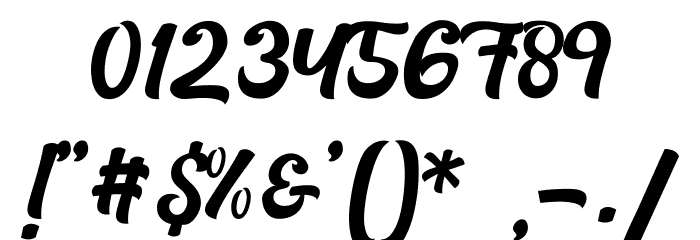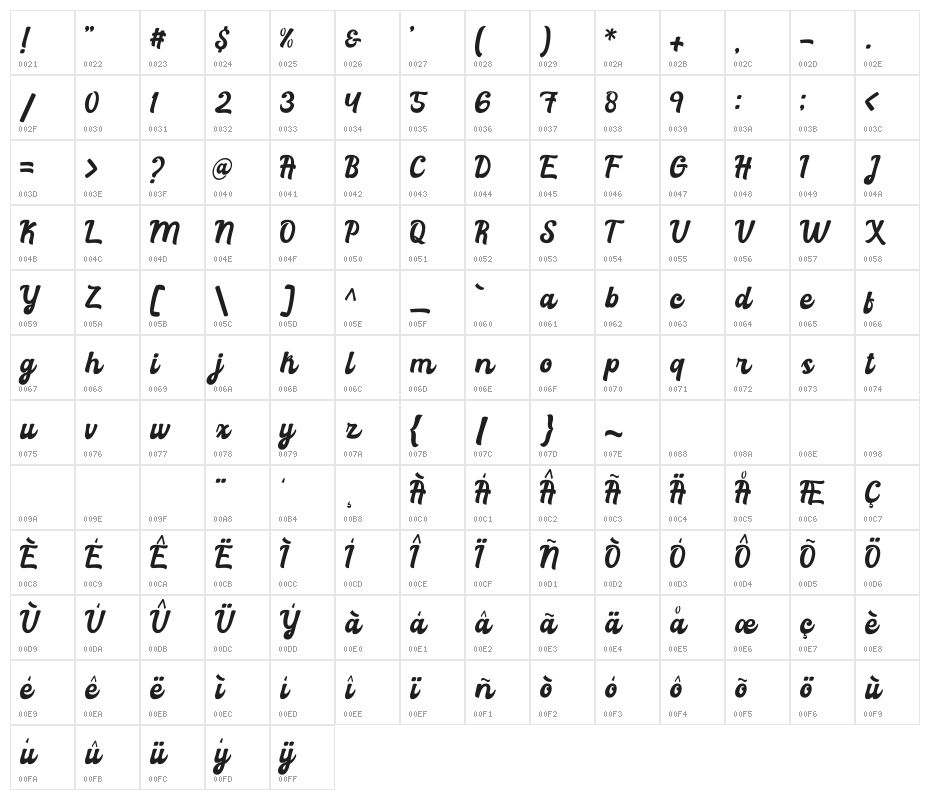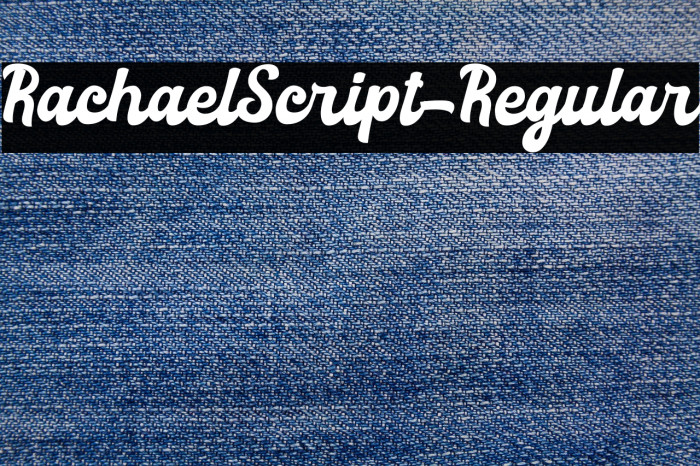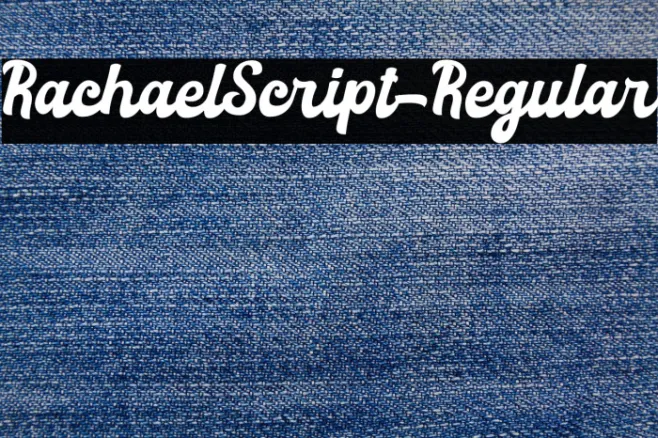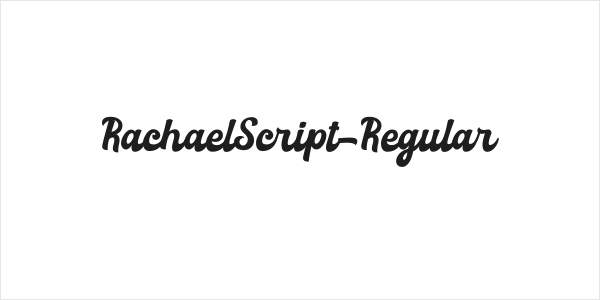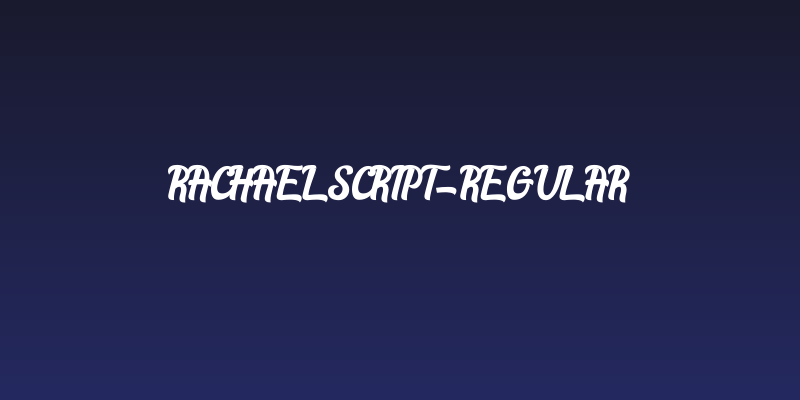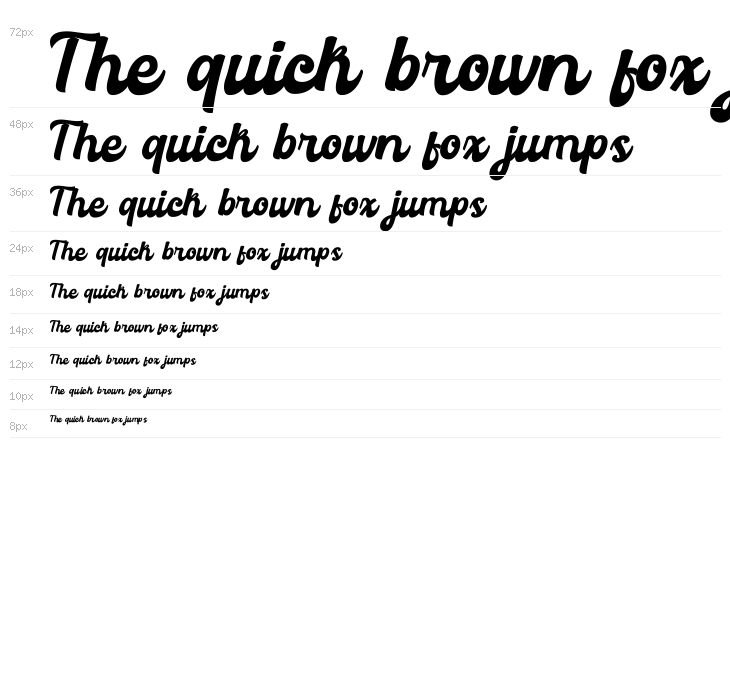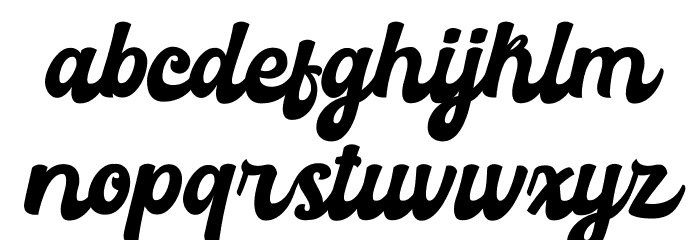
RachaelScript-Regular Font
RachaelScript-Regular Description
This script font exudes a lively and dynamic personality with its bold, flowing strokes and smooth curves. The uppercase letters are characterized by their sweeping lines and elegant loops, while the lowercase letters maintain a consistent rhythm and fluidity. The numerals and special characters complement the overall style with their rounded forms and playful flair. This font is designed to capture attention and convey a sense of creativity and movement, making it ideal for projects that require a touch of elegance and expressiveness.